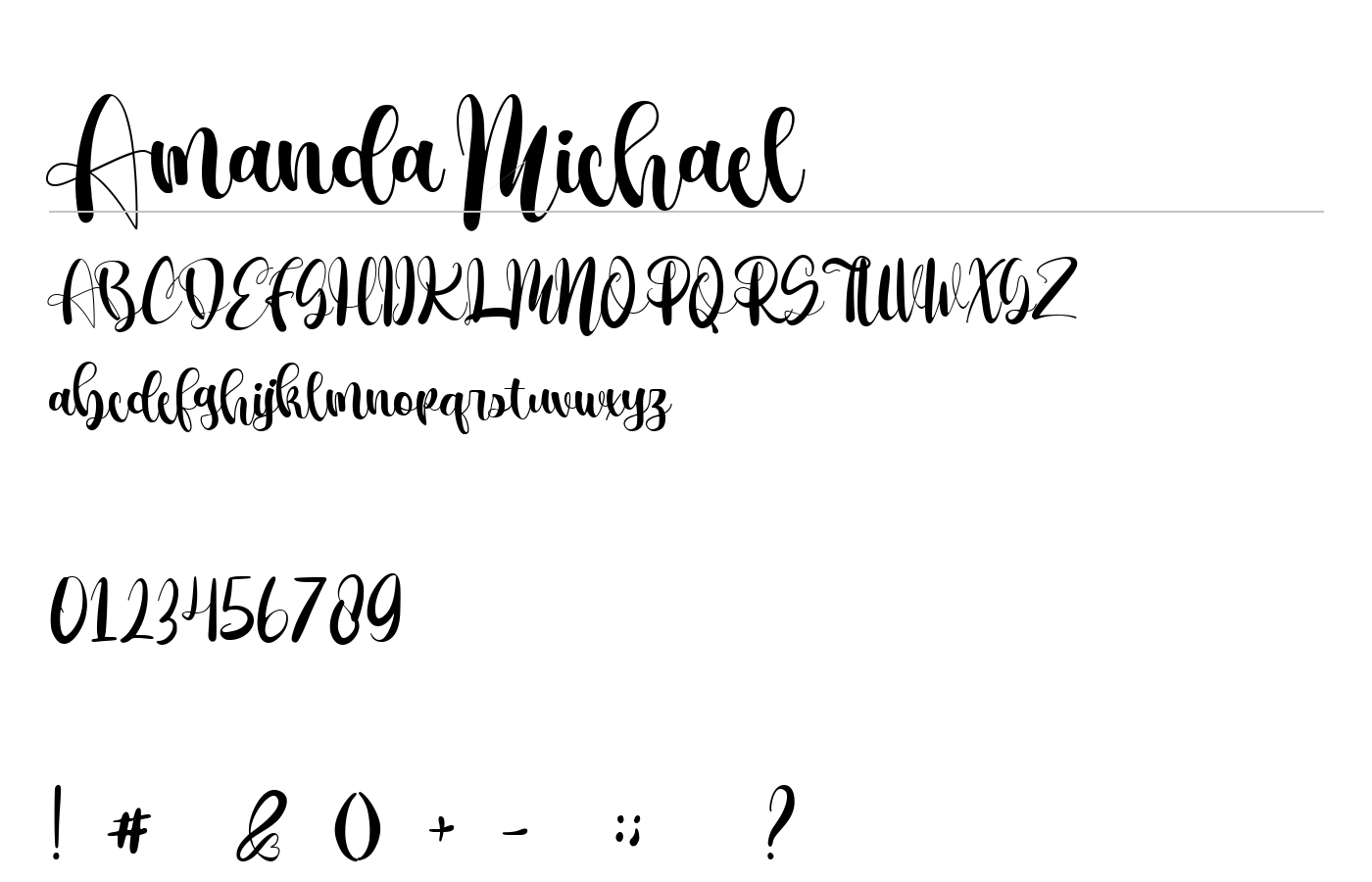
Amanda Michael is a stylish script font featuring elegant, flowing letterforms with a bold and playful personality. Its smooth contrast and unique letter shapes make it perfect for creative branding, invitations, and eye-catching headlines, delivering a modern yet friendly feel. This font works well where a personal, artistic touch is desired, adding charm and sophistication to any design.
Amanda Michael Font
About Amanda Michael Font
| Font family | Amanda Michael Font |
| Designer | Mikro Type Std |